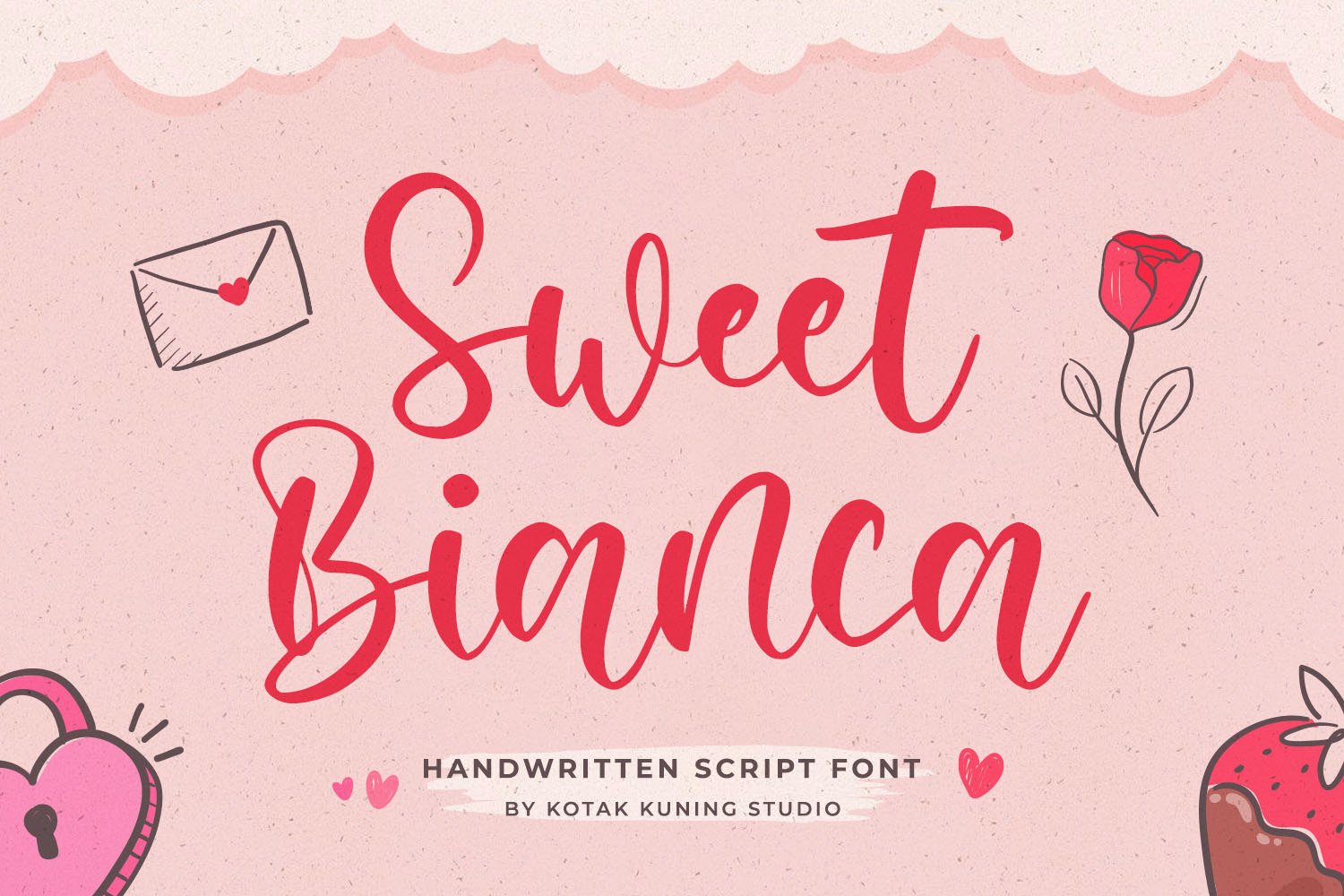
Sweet Bianca Modern Script Font
Sweet Bianca is a sweet modern script font. This font was designed to enhance the beauty of your projects.
Sweet Bianca is perfect for many different projects such as logos & branding, invitation, stationery, wedding designs, social media posts, advertisements, product packaging, product designs, label, photography, watermark, special events, or anything.